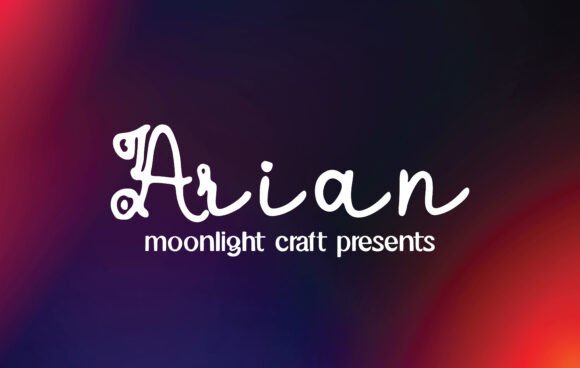
Unleash Your Creativity with Arian Font
There’s something magical about the moment when an idea clicks – the spark of inspiration that sets your creative juices flowing. You see a vision, a feeling, a message that you want to convey, and you know exactly how to bring it to life. For designers, this moment is what drives them to create something truly special. And with the right tools, they can turn that spark into a masterpiece.
Arian Font is a beautiful, handwritten font that can take your creative ideas to new heights. With its elegant, flowing script, it’s the perfect choice for creating eye-catching logos, branding, and quotes that leave a lasting impression. Whether you’re a seasoned designer or just starting out, Arian Font is a valuable addition to your toolkit.
Arian Font Key Features
- Unique Characteristics: This font features a unique blend of modern and traditional elements, with distinctive letterforms and flourishes.
Arian Font Review
I recently had the chance to work with the Arian font, and I wanted to share my honest thoughts on it.
- Unique aesthetic: The Arian font has a distinctive, modern look that can add a touch of elegance to any design.
- Legibility: Despite its bold and artistic feel, the font is still easy to read, making it a great choice for body text.
- Flexibility: The font comes in a range of weights, from light to bold, allowing for a high degree of customization.
- Not ideal for small text: The font’s unique style can make it difficult to read in smaller sizes, which may limit its use in certain applications.
- Limited language support: The font may not include support for certain languages, which could be a problem for designers working with multilingual content.
The Arian font is a solid choice for designers looking to add a touch of sophistication to their work. While it may have some limitations, its unique aesthetic and flexibility make it a great option for the right projects.
The Arian Font is a versatile font suitable for a variety of applications, including:
- Body text for presentations and documents
- Signage and branding
- Editorial content and publishing
Tips for Getting the Most Out of Arian Font
For the best results with the Arian Font, consider the following tips:
- Pair it with a clear and simple sans-serif font for body text.
Alternatives to Arian Font
Open Sans is a modern sans-serif font that is highly legible and versatile. It is ideal for use in digital products, such as websites and mobile apps, where readability is crucial.
Comparison to Arian Font: Open Sans has a more neutral tone and a slightly more condensed feel, making it suitable for longer blocks of text. It is also highly customizable and has a wide range of weights and styles available.
Montserrat is a geometric sans-serif font that is highly versatile and suitable for use in a wide range of applications, from digital products to print materials.
Comparison to Arian Font: Montserrat has a more geometric feel and a slightly more dramatic tone, making it suitable for use in headlines and titles. It also has a wide range of weights and styles available, making it highly customizable.
Lato is a modern sans-serif font that is highly legible and suitable for use in digital products, such as websites and mobile apps.
Comparison to Arian Font: Lato has a more rounded feel and a slightly more elegant tone, making it suitable for use in applications where a more refined look is desired. It is also highly customizable and has a wide range of weights and styles available.